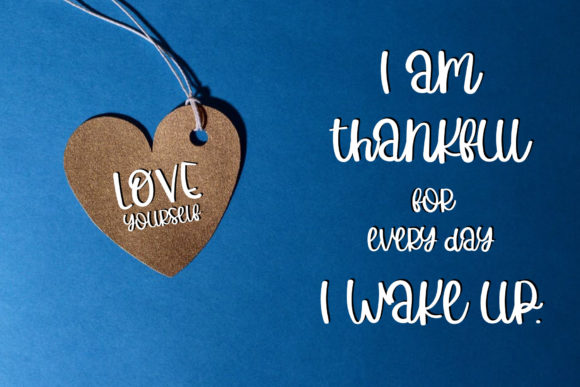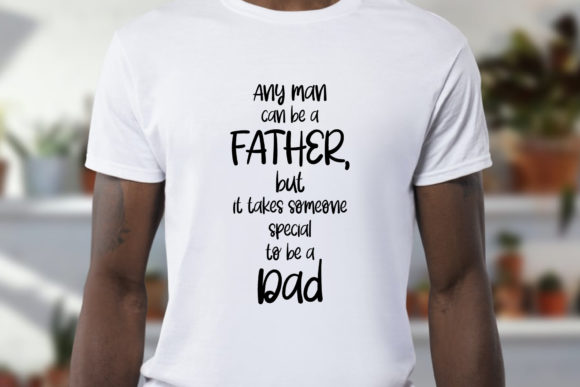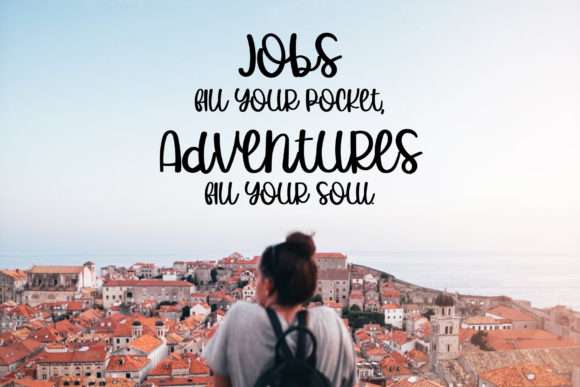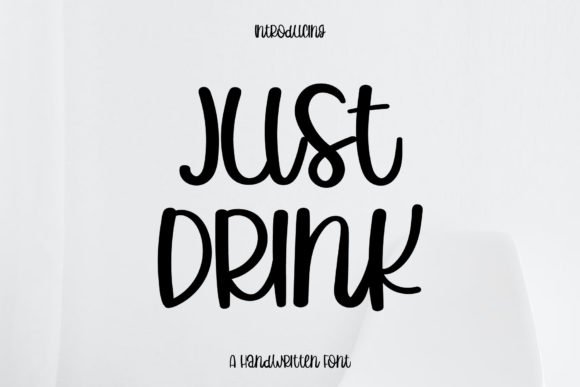
Introduction to Just Drink Font
Just Drink is a fun and relaxed handwritten font.
It is defined by smooth curves and is perfect for fashion branding or editorial designs Add it confidently to your projects, and you will love the results.
Key Features of Just Drink Font
Why Choose Just Drink Font?